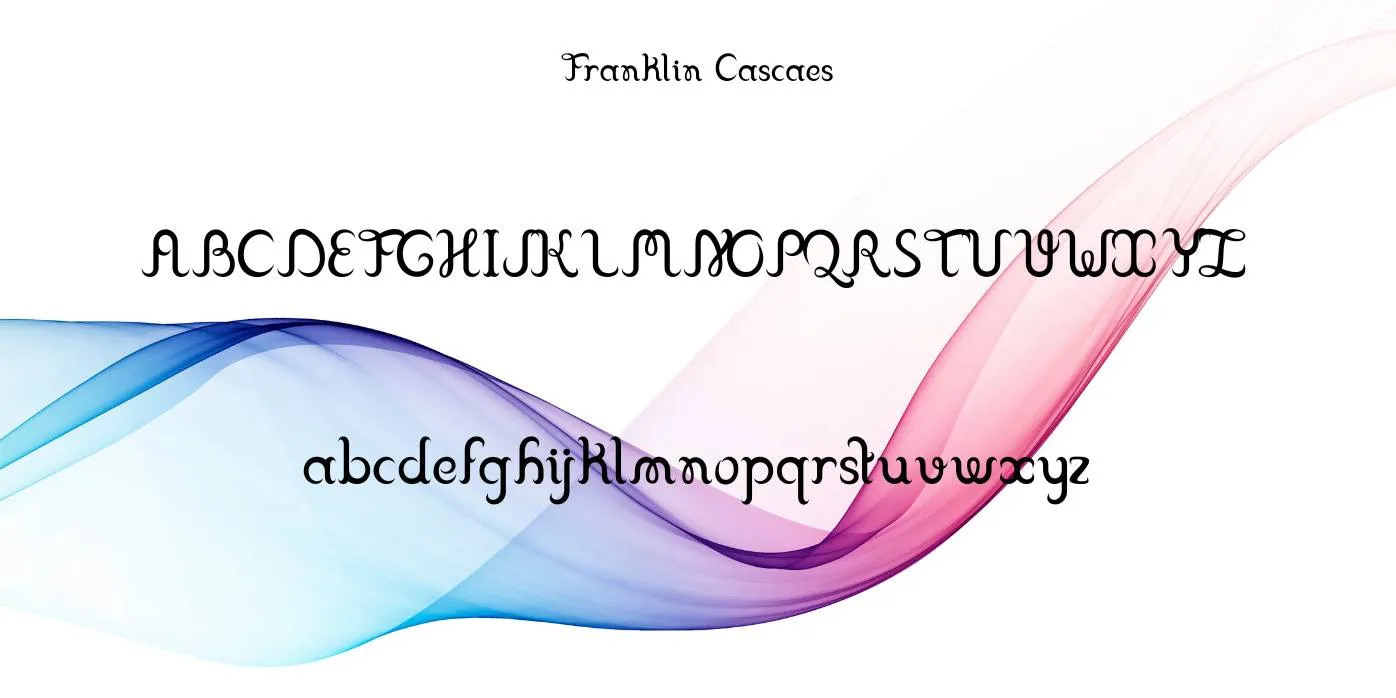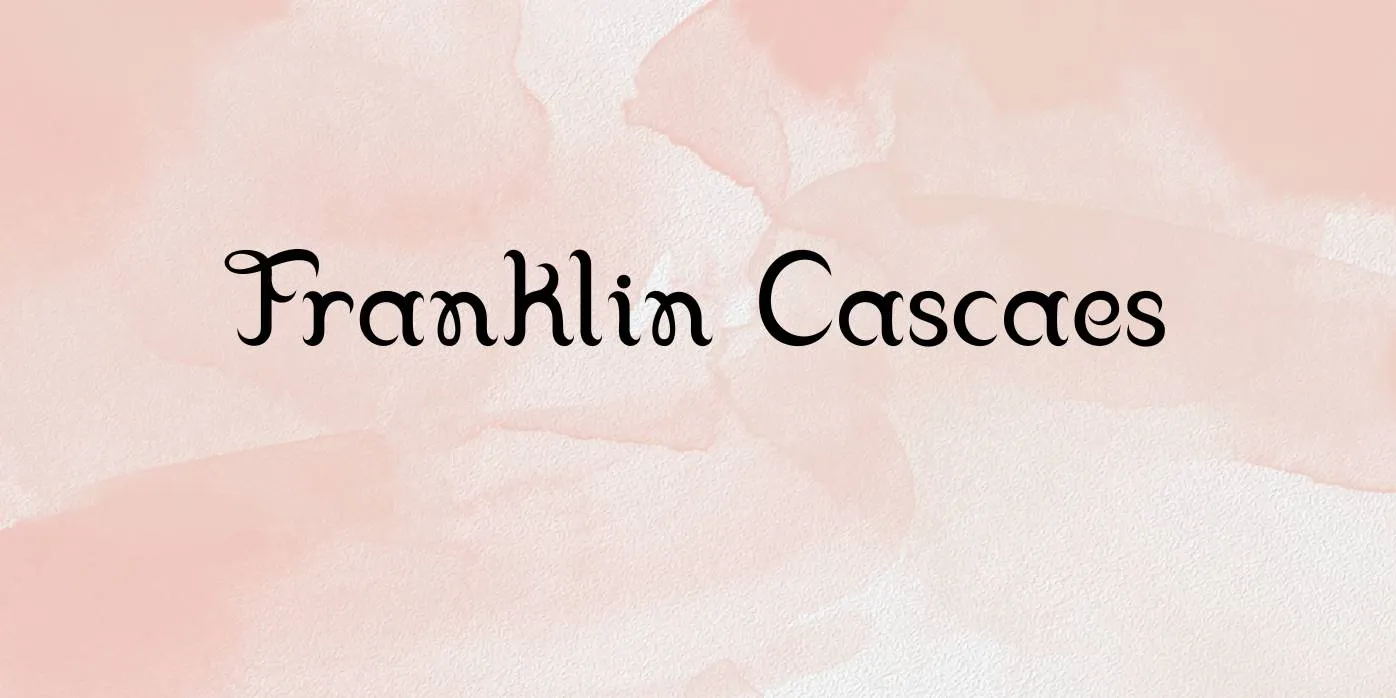
Franklin Cascaes Font
Here we discuss detailed information about a very nice fancy font Franklin Cascaes Font. This stunning font is designed by Saulo Deboni, Mirian Mitsue Yanai, and Silvia Cristina Mederiros. It has amazing features which can be used to design many different projects. An online generator tool supports this font which you can copy and paste your text easily and convert into a stylish look within seconds.
It works online and there is no need to download the font. It contains 183 characters, 144 glyphs, and 1000 units per Em. The weight of the font is semi-light and the width of this font is medium (normal). You can use this font on different types of devices such as Windows.
Usage You can make different projects by using this font it has different features like characters, symbols, numbers, small letters, capital letters, punctuations, and special characters. Its stylish and fancy look can ab used to design headlines for different projects. To make attractive logos you can use this font as well. Titles of different brands can also be made by using this font.
This font is also useful for making attractive banners, posters, flyers, and brochures for any kind of organization and brand. To make stylish website and graphic designs you can use this font. To make or edit different eye-catching book covers and fashion magazine covers as well. You can use this font to make attractive designs by using different graphic applications like Adobe Photoshop, CSS, and Canva.